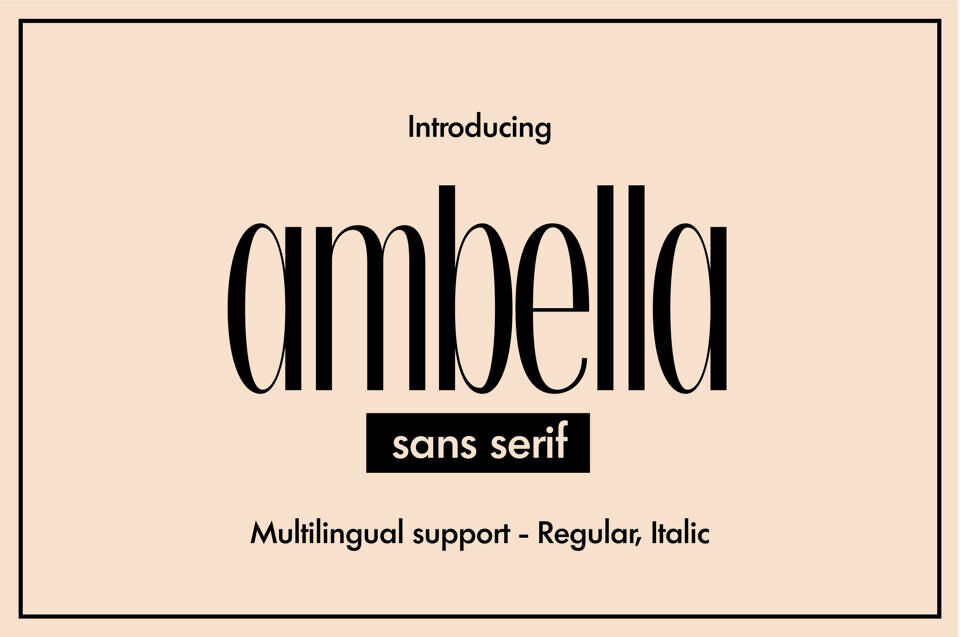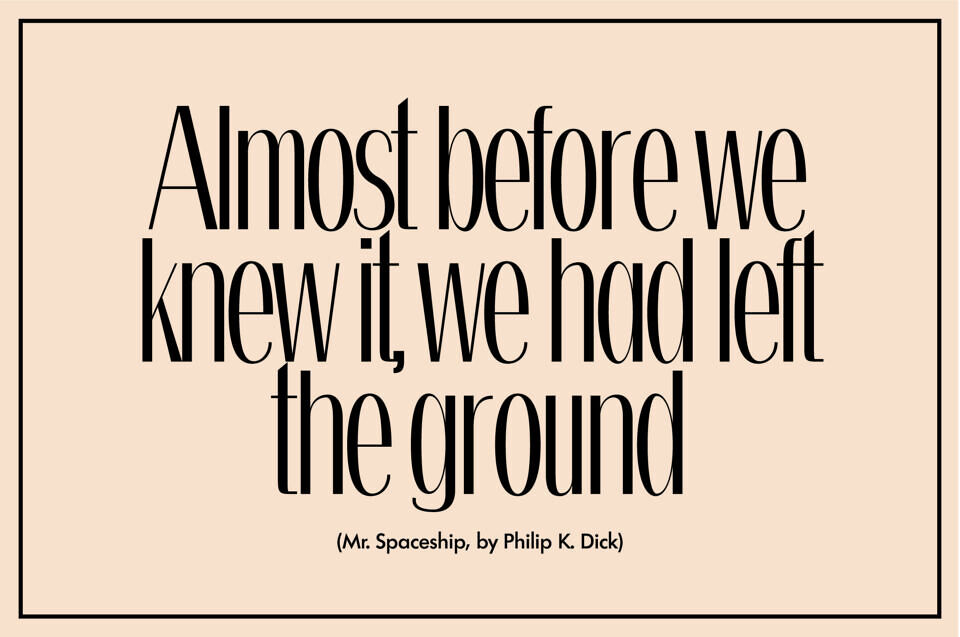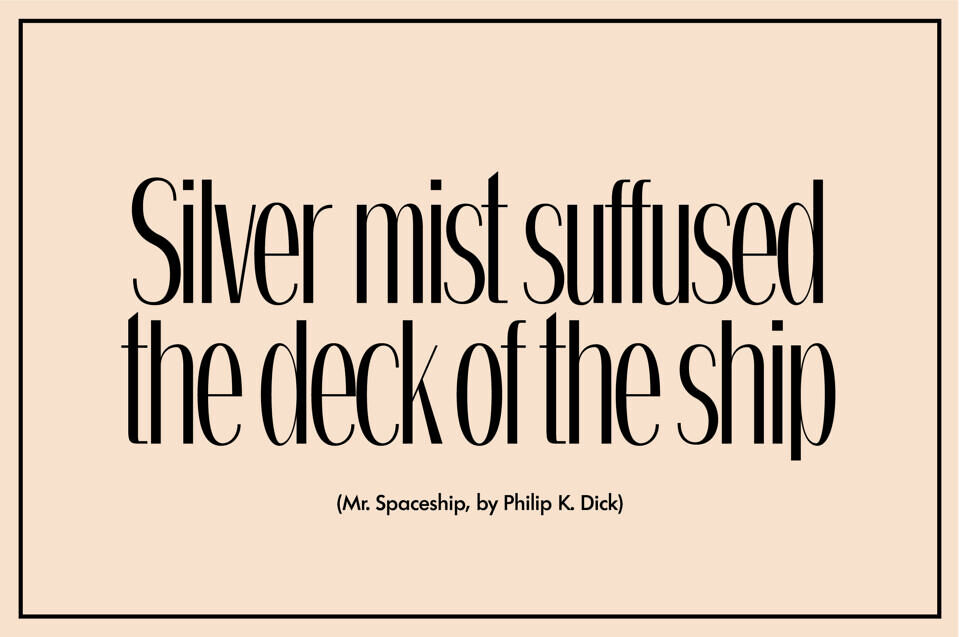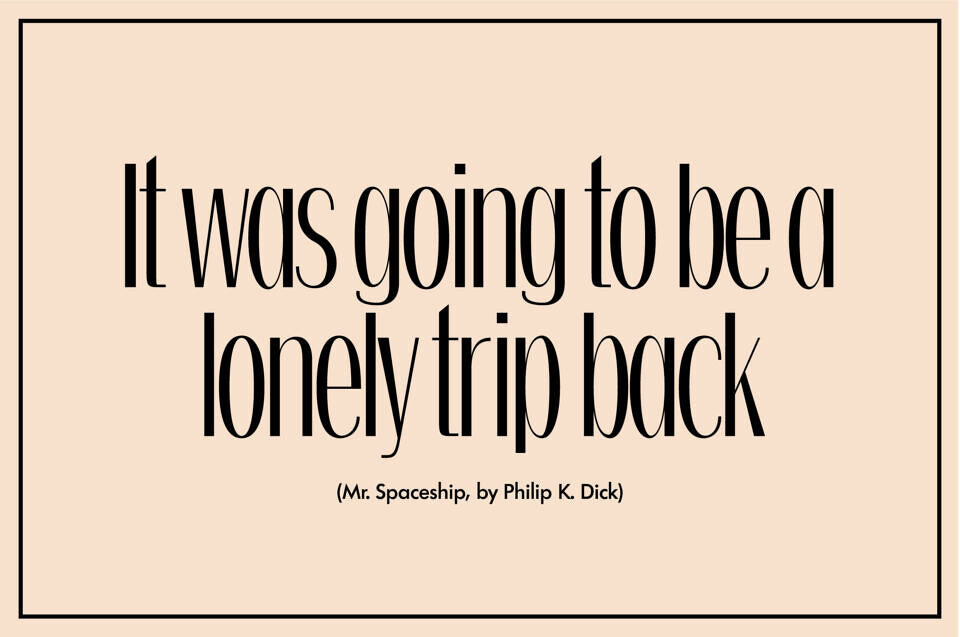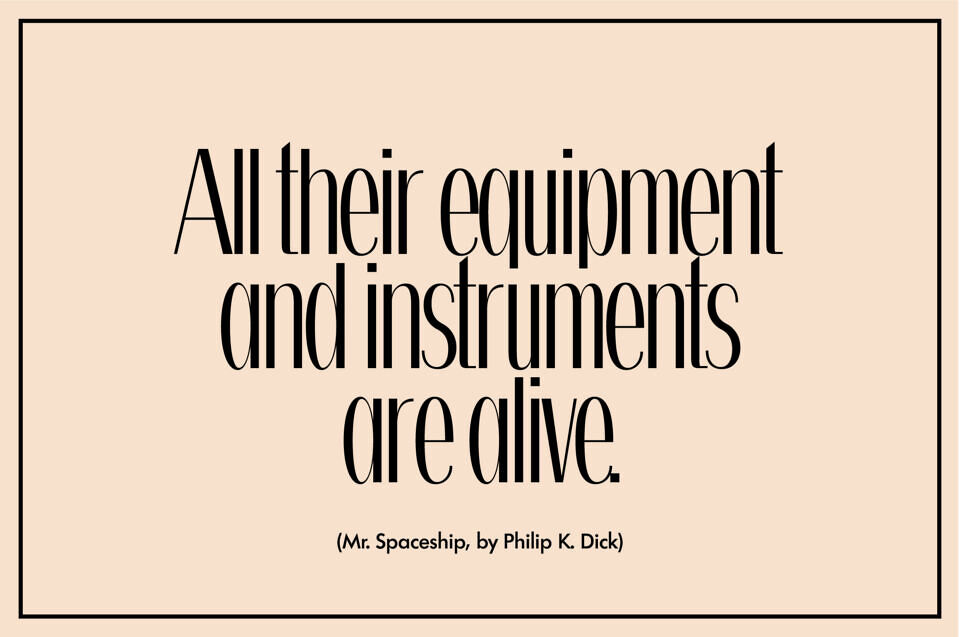
Introducing Ambella, a sleek and elegant sans serif font with minimalist curves. Its clean design features small caps, upper and lower case glyphs, diacritics, and multilingual support. Perfect for adding a touch of sophistication to any project, Ambella brings versatility and timeless appeal to your typography needs.